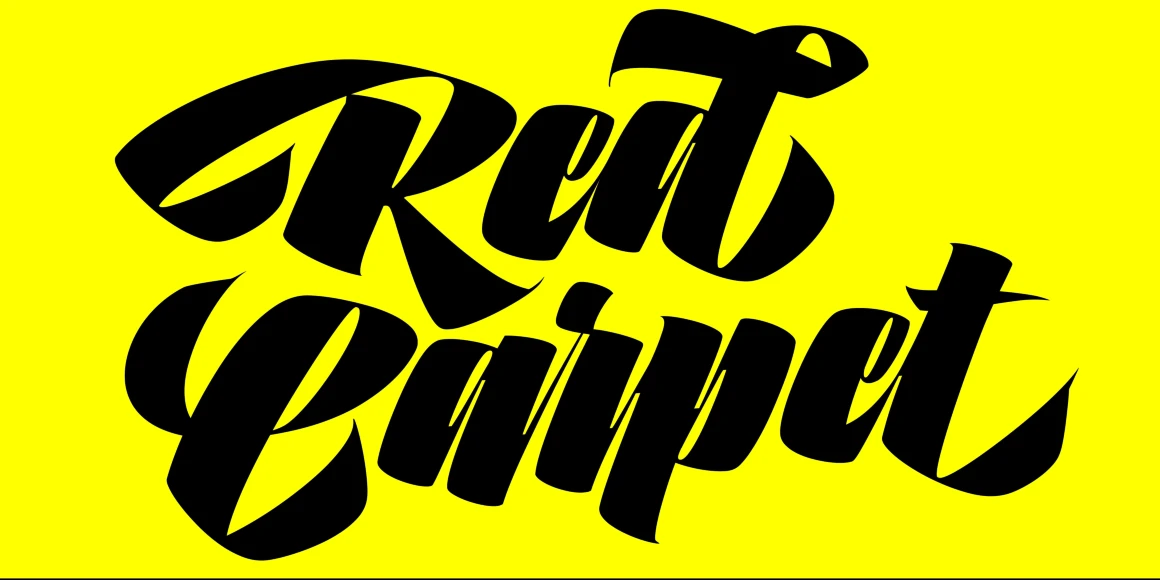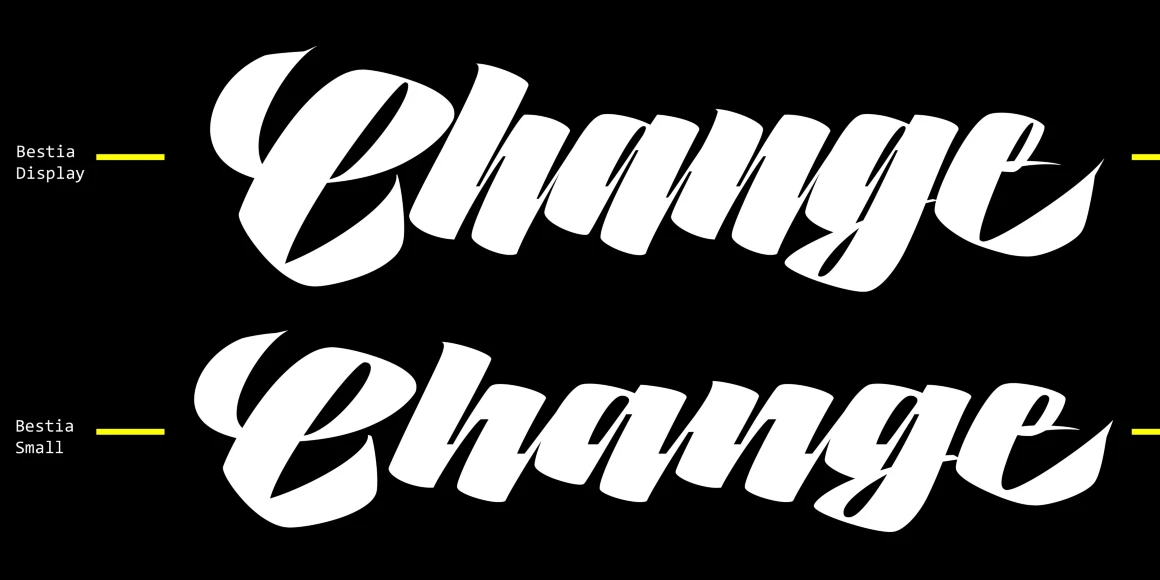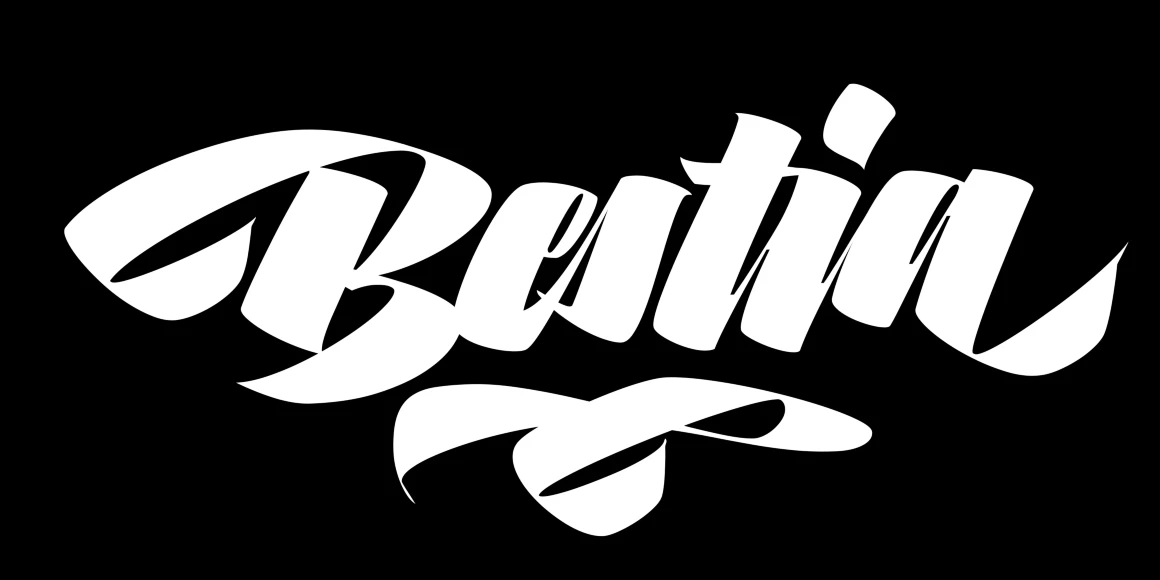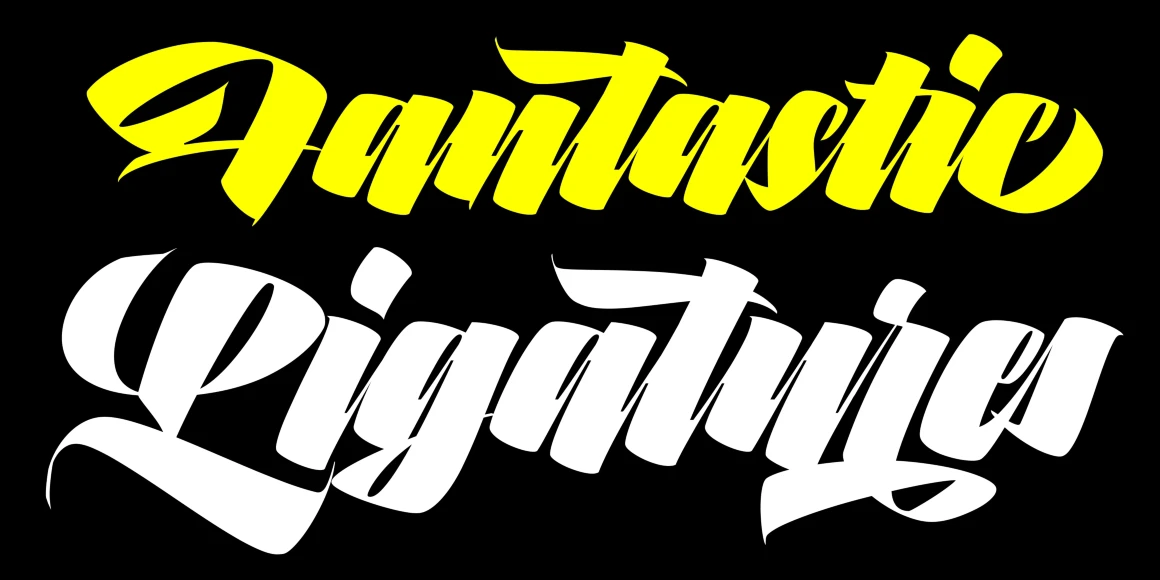
Bestia
By Maximiliano Sproviero
Bestia Variable
Bestia Display
Bestia Headline
Bestia Small
Bestia Subhead
Bestia is a high-contrast brush script that commands attention with bold sweeping strokes inspired by Max’s pointed brush calligraphy practice. Conveying raw energy, the gestural forms are perfect for high-end brands and glossy magazines. Subtle shifts in contrast provide dramatic emphasis for large type and improved readability at smaller sizes. Daring and lively, Bestia will definitely leave a mark.